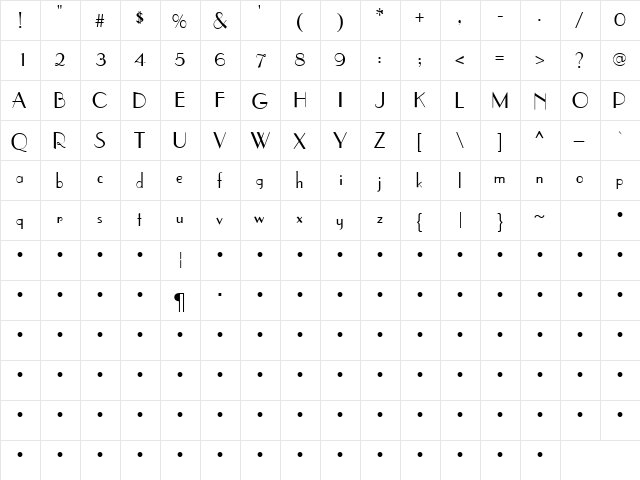
QTParisFrance Regular
Design Context for QTParisFrance Typeface
QTParisFrance is a composed and adaptable typeface that performs quietly and consistently across a wide range of design contexts.